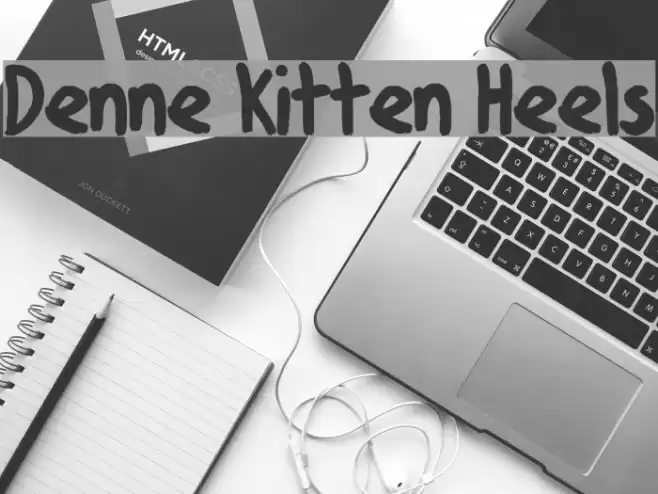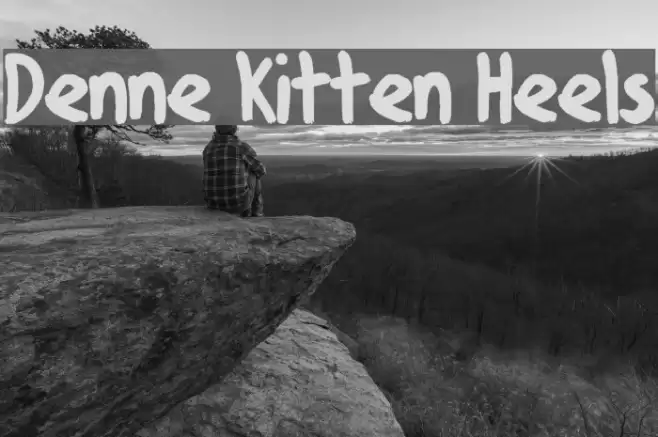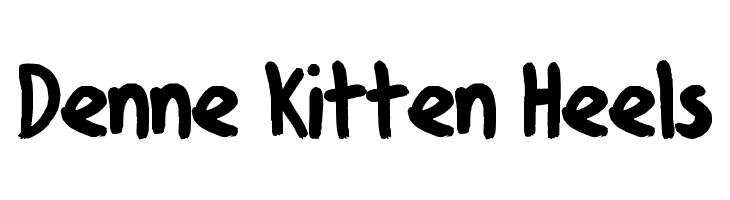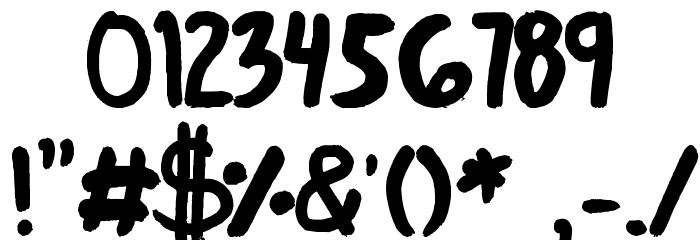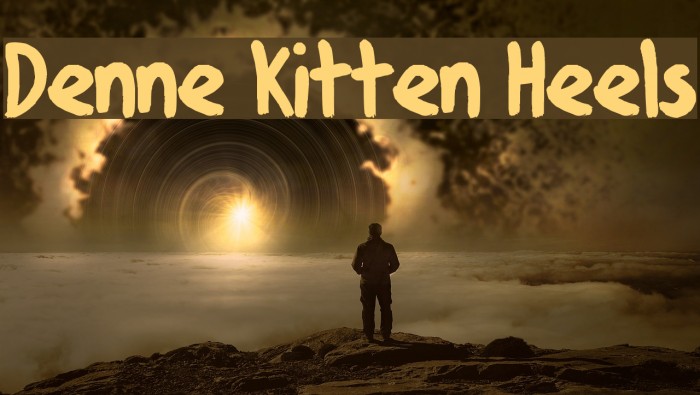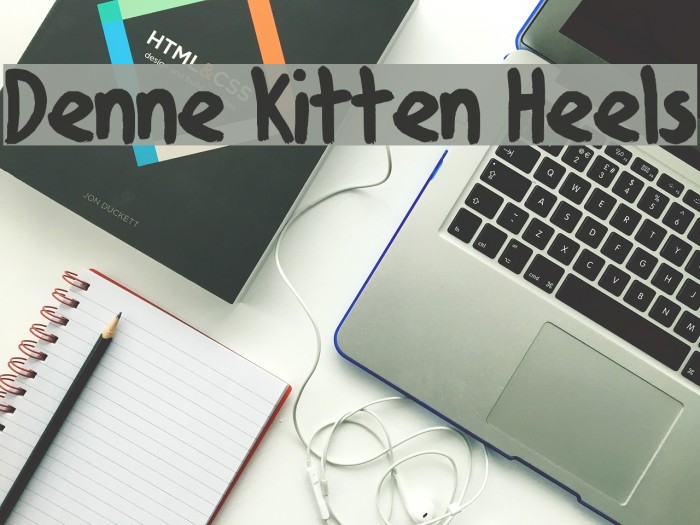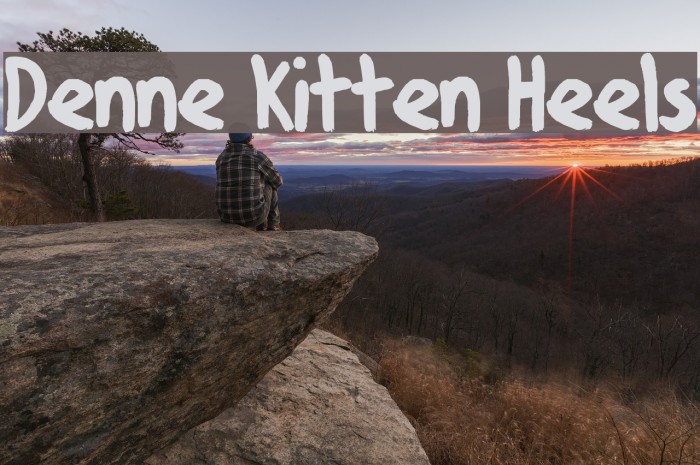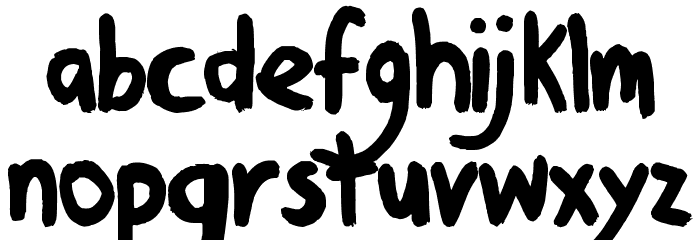
Denne Kitten Heels Font
Denne Kitten Heels Description
This font features a bold and playful handwritten style, characterized by its thick strokes and slightly irregular shapes. The letters have a casual and energetic feel, with a touch of whimsy that makes them stand out. The uppercase and lowercase letters maintain a consistent weight, creating a harmonious look across the alphabet. Numbers and special characters follow the same bold and lively design, ensuring a cohesive appearance throughout. The font's unique style is perfect for projects that require a personal and informal touch.
A bold, playful handwritten font with thick strokes and a casual feel from Uncategorized fonts.
- Proposed Projects: Ideal for greeting cards, children's books, playful branding, and social media graphics.
- Overall Style: Playful
- Use Case: Headlines, Logos, Informal Text